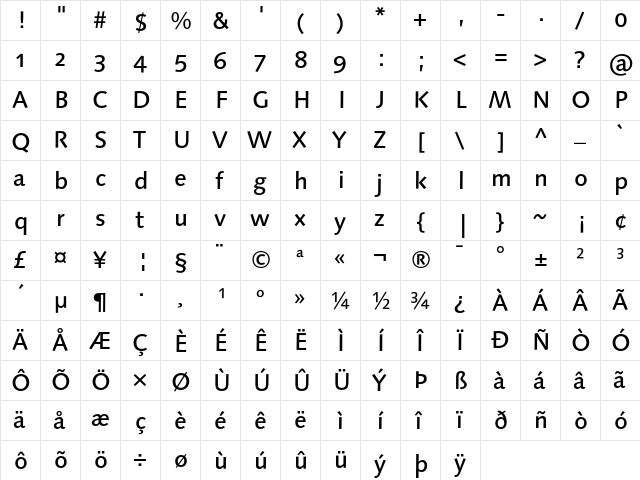
LinotypeSyntaxOsF Medium Font Preview
LinotypeSyntaxOsF Medium
Design Context for LinotypeSyntaxOsF Typeface
LinotypeSyntaxOsF offers clean, dependable letterforms without strong stylistic allegiance, making it a practical choice for designers who need flexibility.